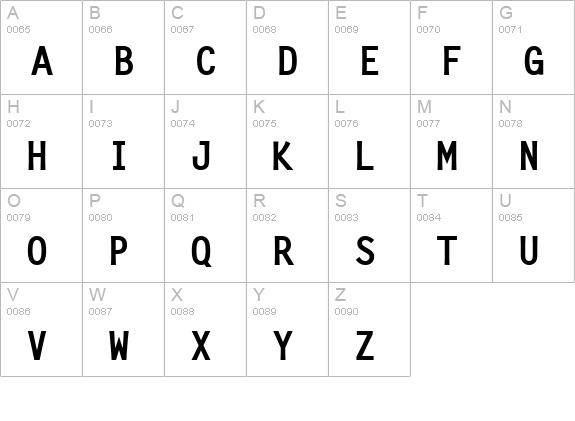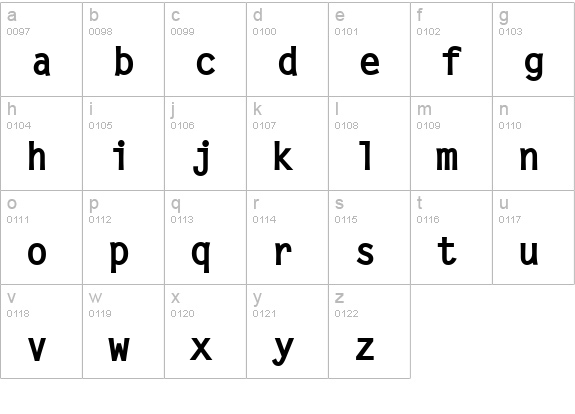
LetterGothic-Bold Font Details
LetterGothic-Bold is a strong, high-contrast variant in the LetterGothic typeface family \xE2\x80\x94 well suited to headlines, attention-grabbing titles, and strong calls-to-action.